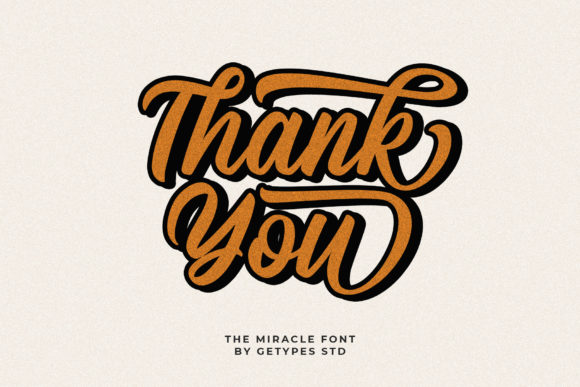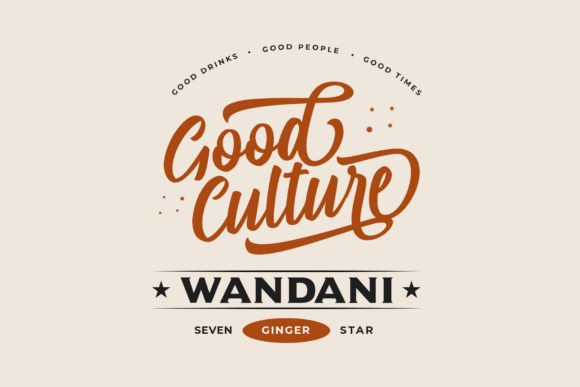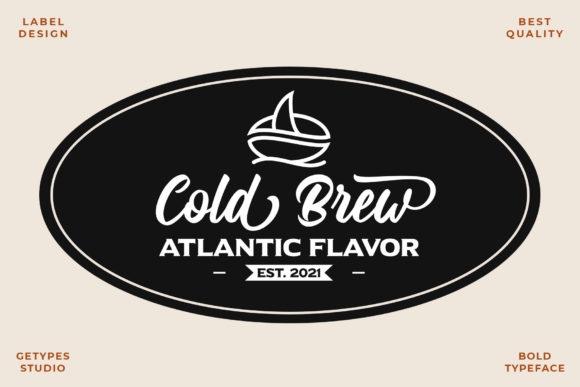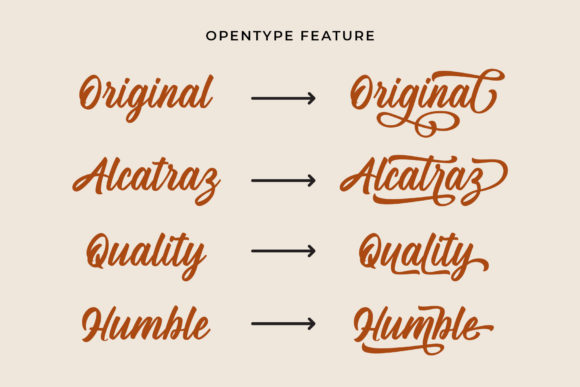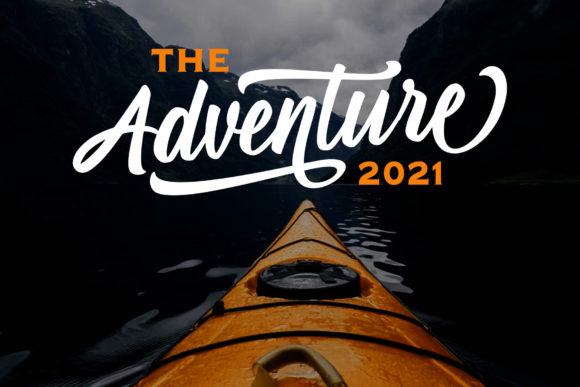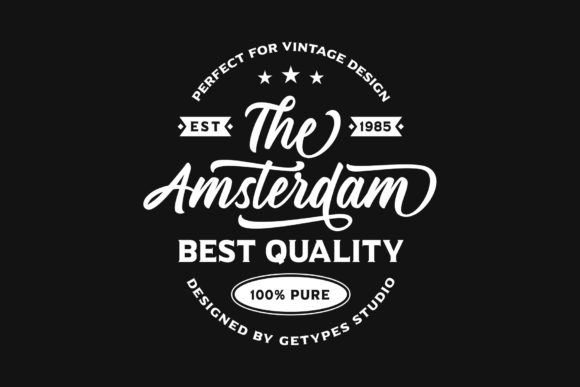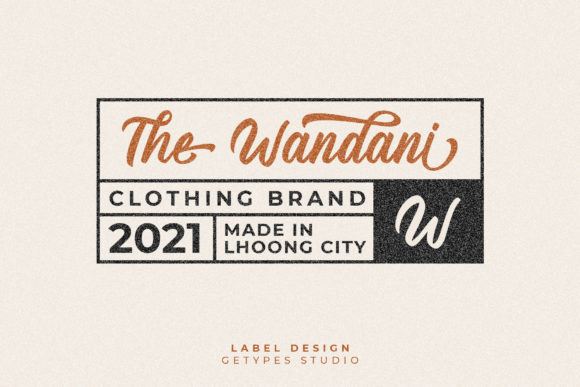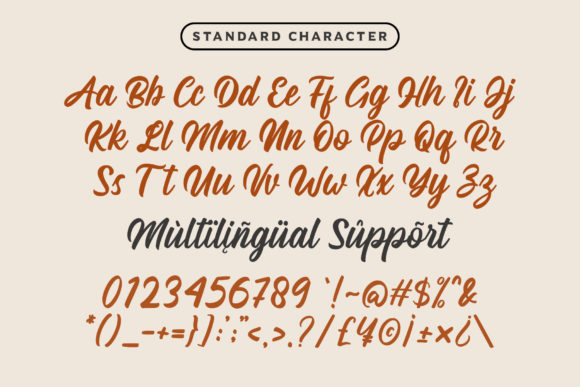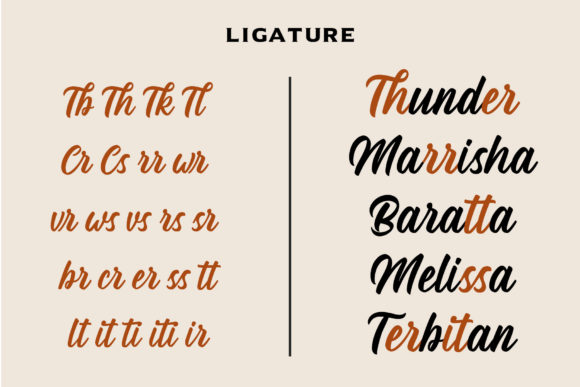
About The Miracle Script Font
The Miracle is a bold and smooth script font. This font reads as strong, confident, and dynamic and can add tons of nostalgic character to your designs.